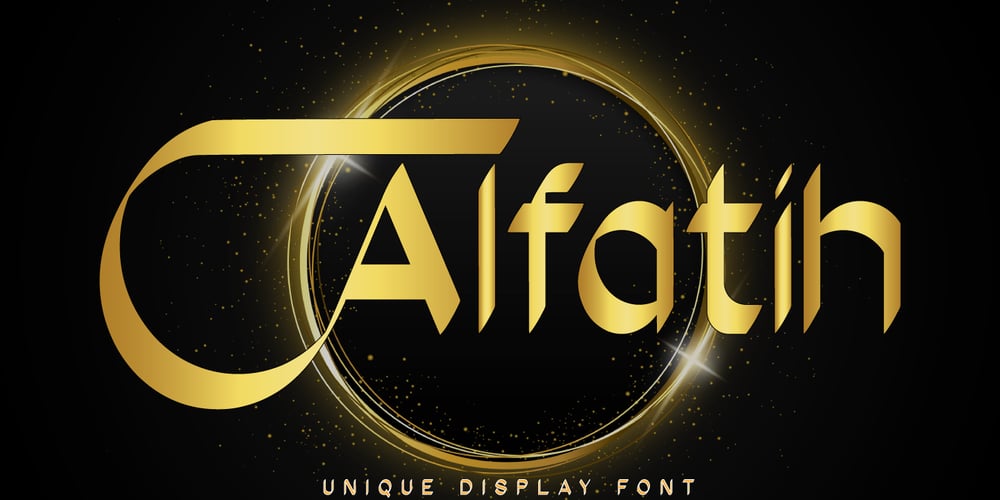
Alfatih Font Family was designed by Fauzul Azmi and published by PojolType. Alfatih contains 1 styles and family package options. This Alfatih font is inspired by calligraphy writing, with modern classic characters. We can use this font for calligraphy book writing, Quran cover writing, film titles, t-shirt designs, magazine titles, web, posters, book titles, logos, country names, brands, billboards. Alfatih font, offers you: 1. Uppercase characters (All uppercase letters, 4 models) 2. Ligature (22 two-letter characters) and Alternate Styles 2. Ligature (8 characters three letters) with alternative styles, we can use it for logos 3. Multilingual Support (Europe Latin West), Numbers and Punctuation